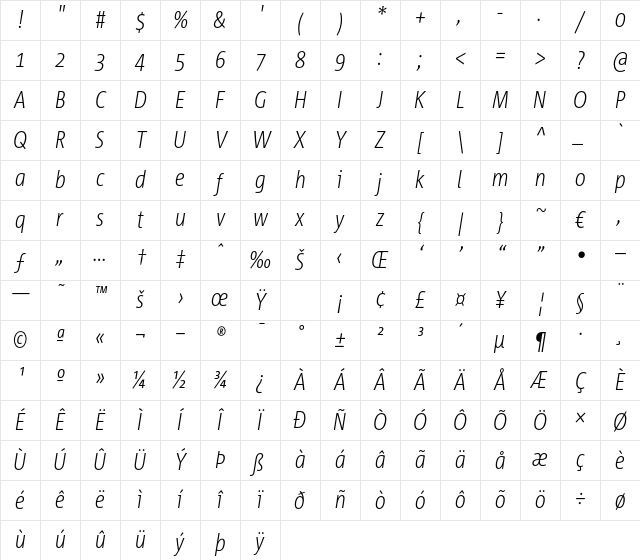
Corpid Cd Light Italic
Corpid Cd Family
Design Context for Corpid Cd
Corpid Cd is a composed and adaptable typeface that performs quietly and consistently across a wide range of design contexts. The slanted form adds forward momentum and visual energy. Its slender proportions lend an understated elegance to any composition.